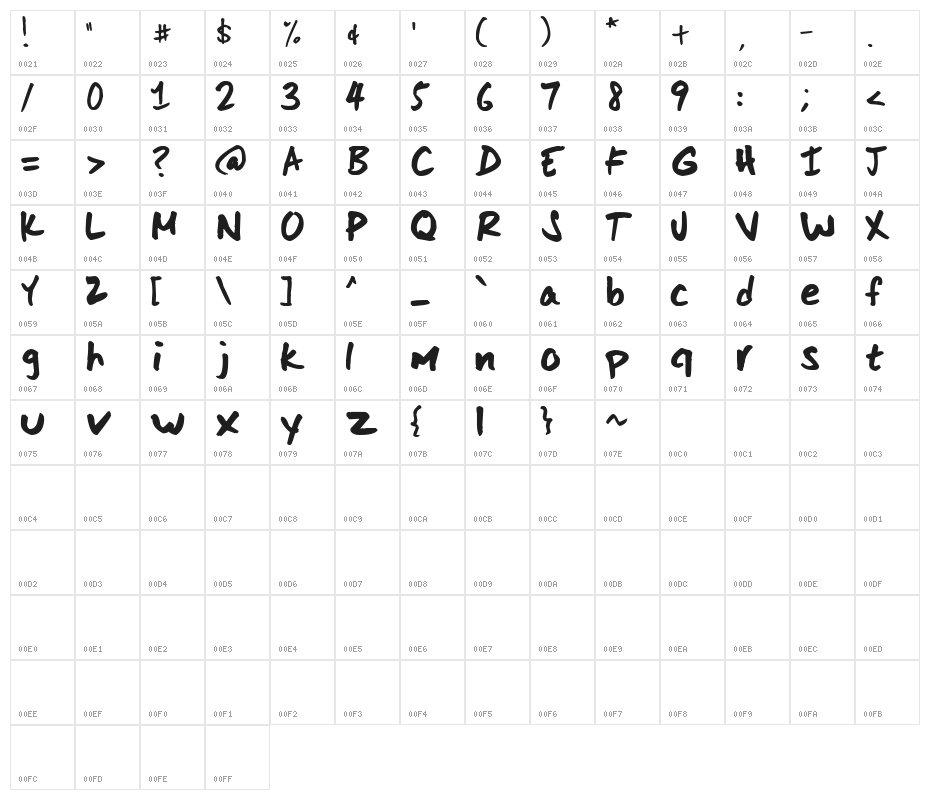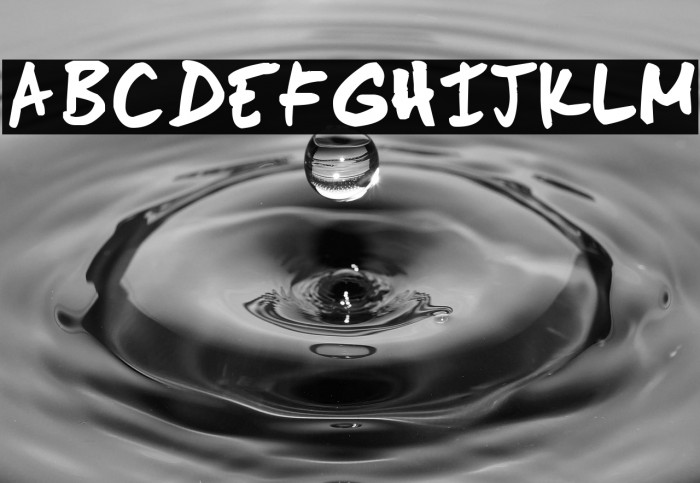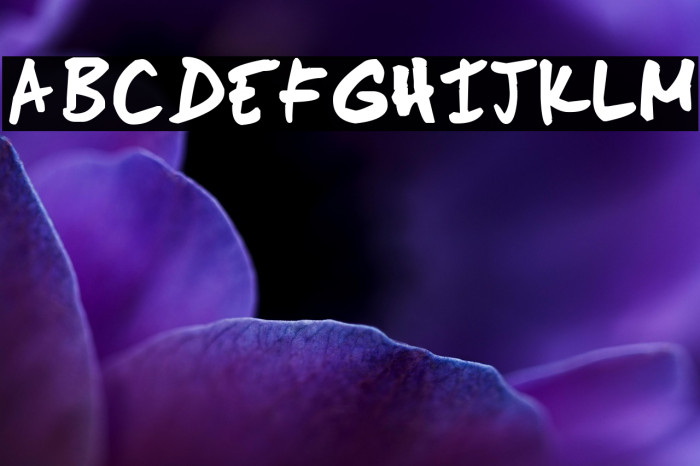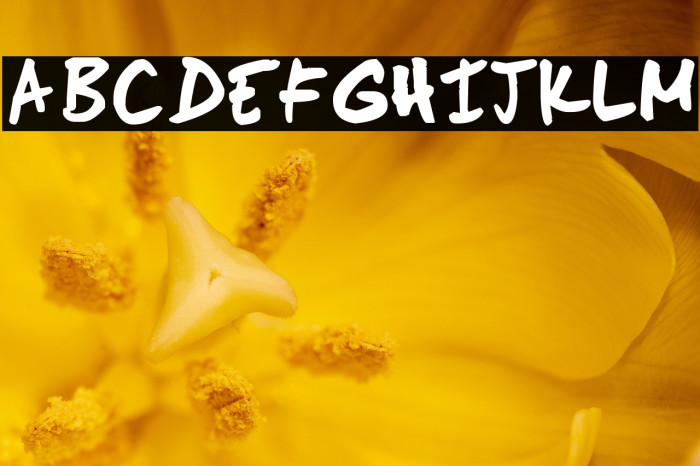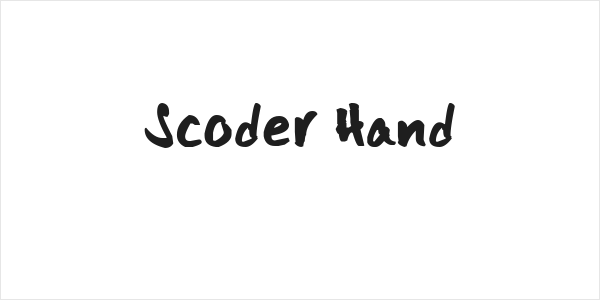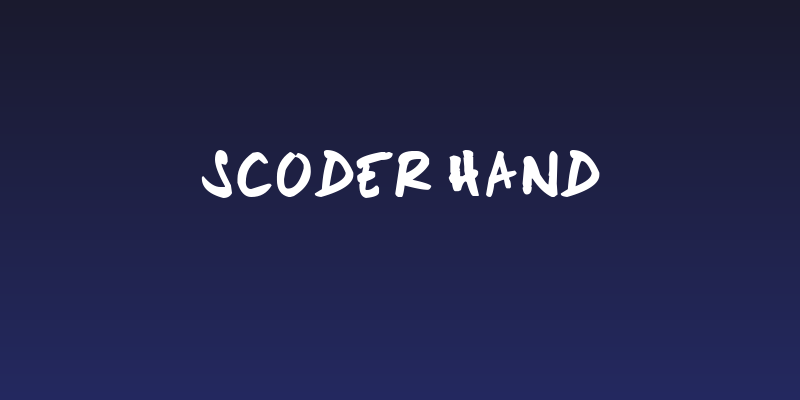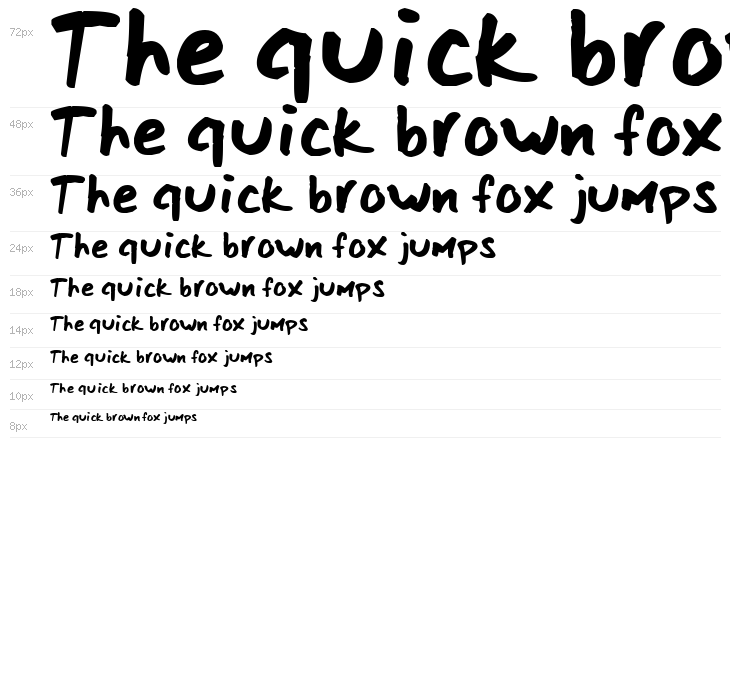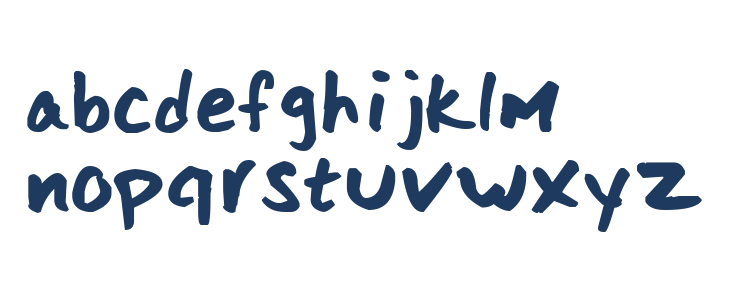
Scoder Hand Font
Scoder Hand Description
This font exudes a playful and casual handwritten style, characterized by its bold and expressive strokes. Each letter appears as if it were drawn with a marker, giving it a personal and informal touch. The uppercase and lowercase letters maintain a consistent style, with rounded edges and a slightly irregular baseline that enhances its hand-drawn appearance. The numerals and special characters follow the same aesthetic, ensuring a cohesive look across all elements. This font's unique charm lies in its ability to convey a sense of spontaneity and creativity, making it ideal for projects that require a personal touch.
| Overall Style | Casual, Playful |
| Use Case | Headlines, Logos, Informal Text |
| Proposed Projects | Ideal for greeting cards, children's books, casual branding, and creative posters. |